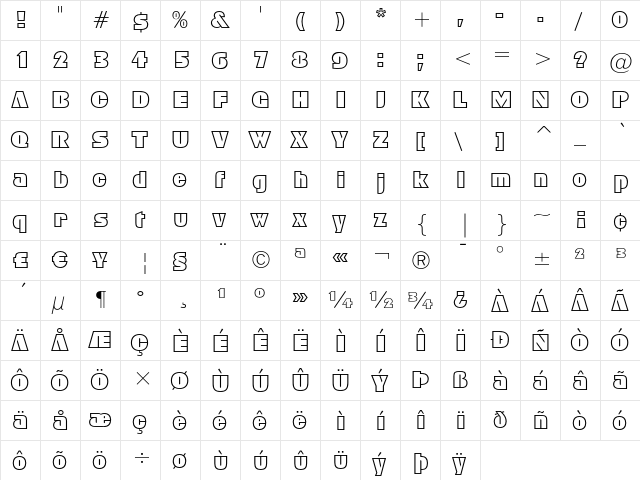
Geometric 885 Regular
Design Context for Geometric 885 Typeface
Geometric 885 is a composed and adaptable typeface that performs quietly and consistently across a wide range of design contexts.